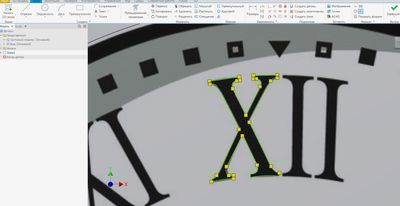
INVENTOR CURVED FONT - CURVED BOTTOM, VERTICAL TEXT
I am trying to duplicate this clock face.
If I used the radius text command, the text is splayed out wide at the top. So the numerals (text) are skewed. Is there a way to keep the numerals vertical, while curving the bottom?
I'm assuming it's just a "finding the correct font" issue...... but I've been searching for several lifetimes, and the fonts all react the same........
What is this "text radius" command?
Is the graphic shown a goal or a problem?
This is in the sketch "In Geometry-Text"
It's better to do it one digit at a time
It's not about the font, but about the method of getting the text along the arc, namely, stretching it along the circumference.
If it is really necessary to obtain exactly these designations, then you need to make sketches of symbols for each of the twelve marks.
This is exactly what I showed in the video
1 sketch of a number along an arc - you shouldn't do that - I deleted the sketch
2 sketch I drew a number and showed it - rotation and scale
Not exactly. The author of the post expects the symbols to have arcs on the inside and outside of the clock face (but maintain a stable orientation themselves).
the sketch uses
I, X, V
maybe it would be easier to draw them?
Yes, you can sketch them as @Alexander_Chernikov mentioned.
In Inventor this is the best way.
I don't have FUSION. But similarly, I typical try to scan my image online. With limited success. I love how quickly you were able to bring it into Fusion and move on. I really need this to occur in Inventor. I often get request for this. And a lot of the time the stock fonts can't get the job done. And drawing it every time isn't a good use of time.
would it work if you used a png or SVG created in another tool and import it? after some tinkering I was able to make this using this curved text generator but I think clock face typography is very challenging to get right, because it's so hard to get the text spacing corect